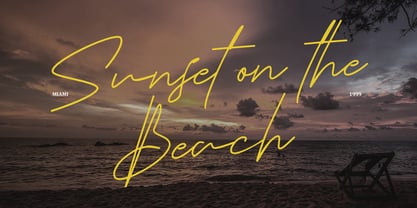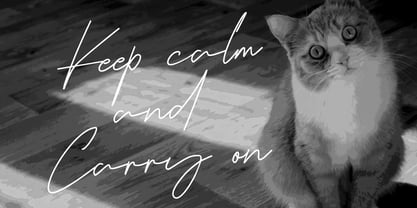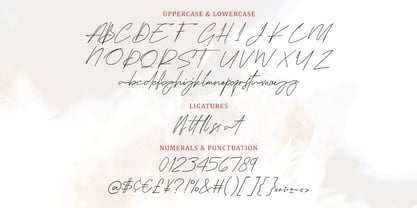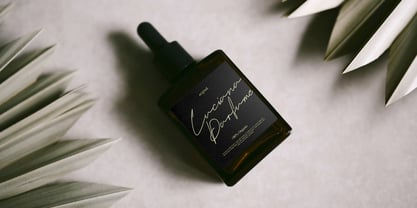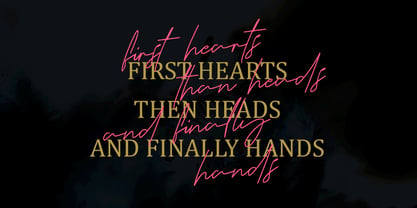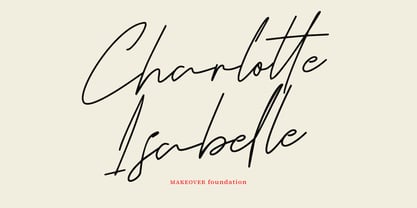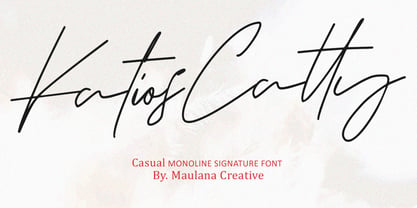
MC Katios Catty
by Maulana Creative
The MC Katios Catty Font Family was designed by Gilang Maulana and published by Maulana Creative. MC Katios Catty contains 1 styles. More about this family
Give your designs an authentic handcrafted feel. “Katios Catty Casual Monoline Signature Font” is perfectly suited to stationery, logos and much more. Include alternative character and ligature characters.
Designers: Gilang Maulana
Foundry: Maulana Creative